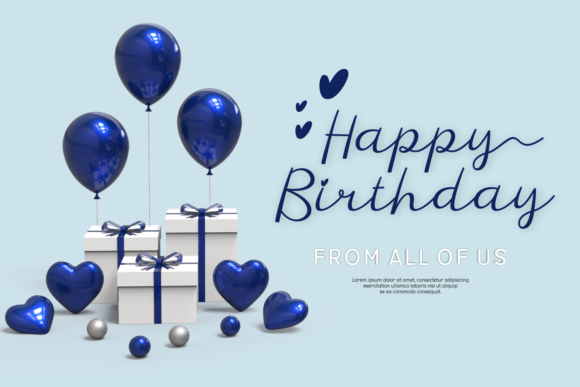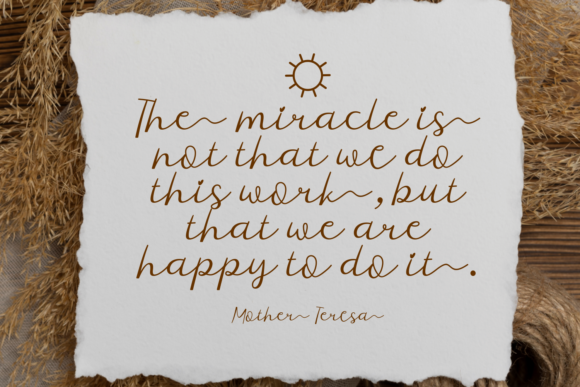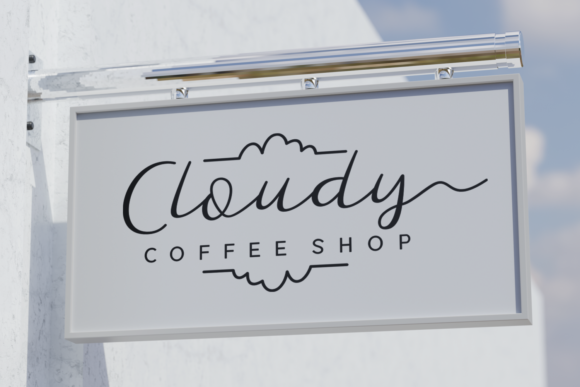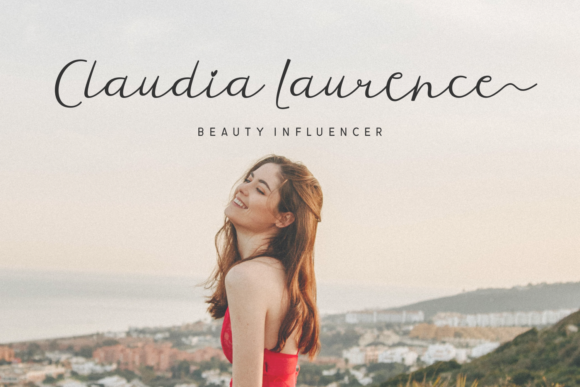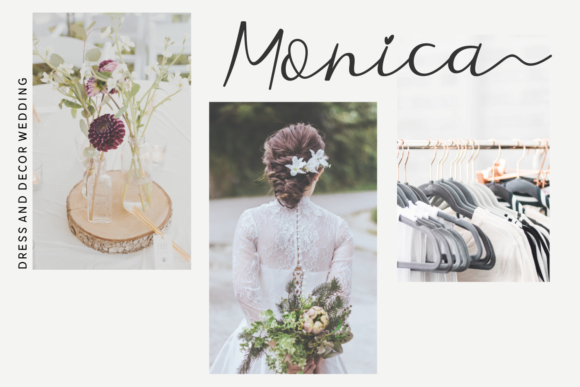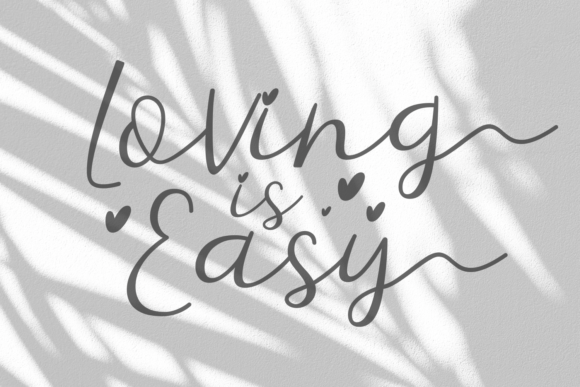
Sweeties Day Font
About Sweeties Day Font
Sweeties Day is an elegant script font that exudes sophistication with its signature thin strokes. This graceful typeface is perfect for creating a range of elegant designs, including business cards, birthday cards, invitations, personal branding, wedding invitations, logos, coffee shop branding, covers, and quotes.
The signature thin strokes in Sweeties Day contribute to its refined and delicate appearance, making it an excellent choice for projects that demand an elegant and sophisticated touch. Whether applied to personal branding materials, wedding invitations, or business cards, Sweeties Day adds a touch of luxury to your designs.
The versatility of Sweeties Day allows it to adapt seamlessly to various design contexts, from formal invitations to stylish logos and coffee shop branding. Its elegant script design makes it a standout choice for creating visually appealing and tasteful content.
In summary, Sweeties Day is more than just a font; it’s an elegant script typeface that brings a touch of sophistication to your designs. With its signature thin strokes, this font is well-suited for a variety of applications, enabling you to create refined and stylish visual content that leaves a lasting impression.